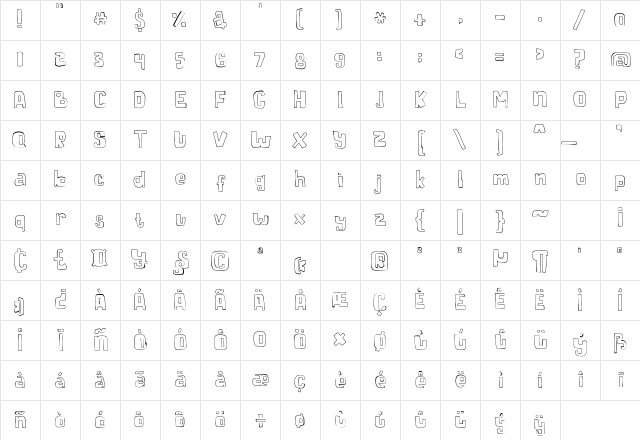
Markisa Outline Regular
Design Context for Markisa Outline
Markisa Outline is built around its visual character rather than neutral utility - its distinctive forms are designed to make an impression at display sizes.
Font Pairing: Pair with a clean neutral sans-serif for body copy to let Markisa Outline's character lead without overwhelming the composition.
Pro Tip: Use Markisa Outline exclusively at display sizes - it was designed to be seen, not read at length. Let a neutral companion handle body copy.